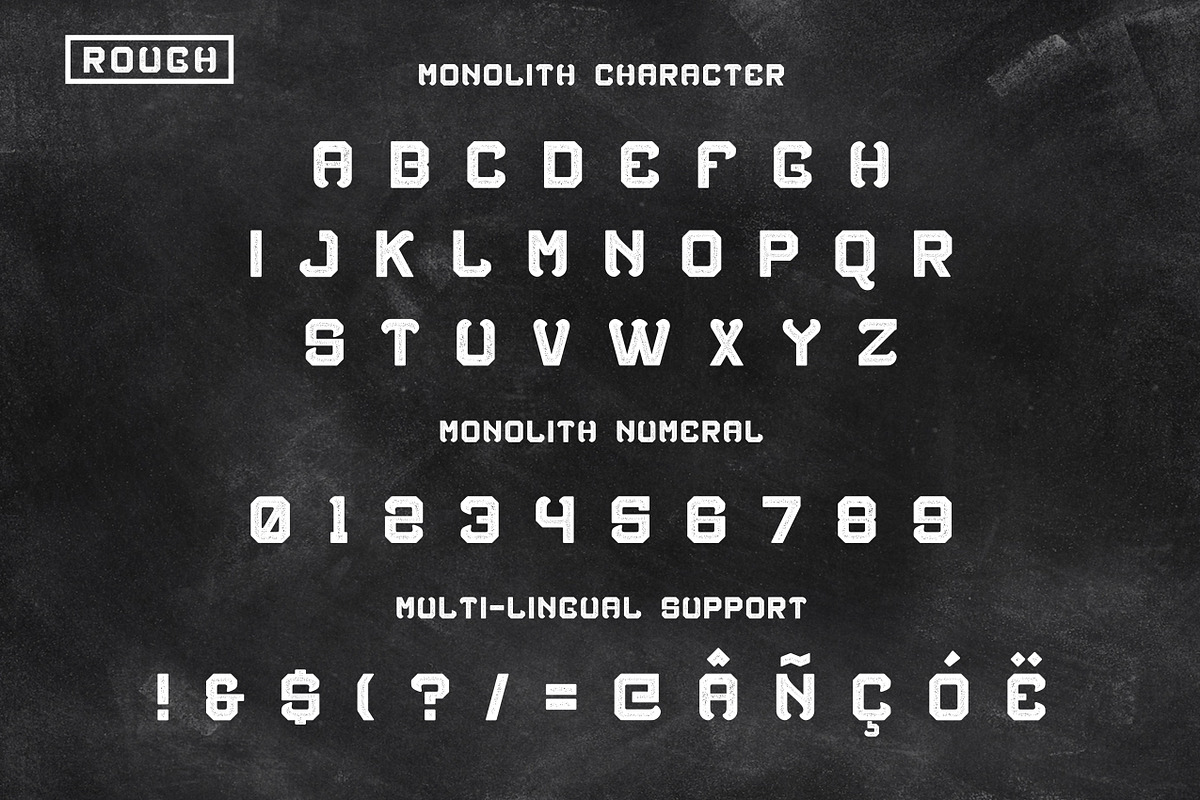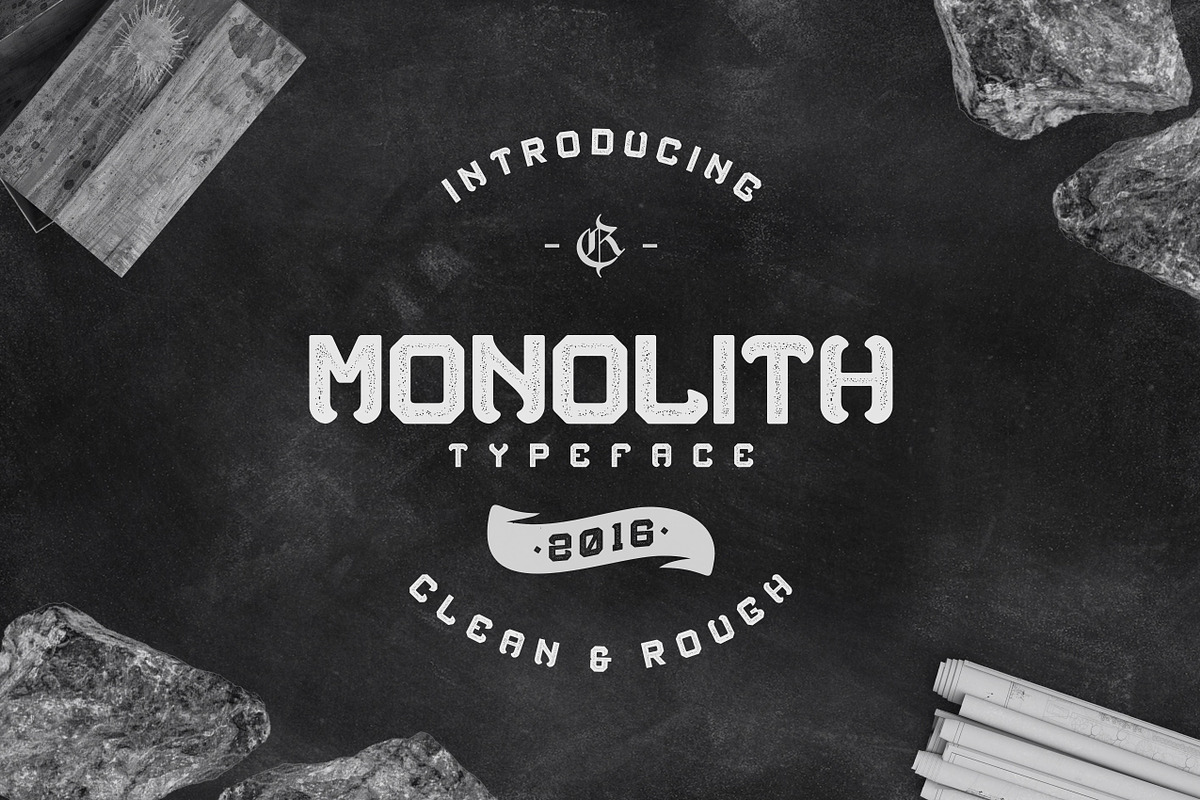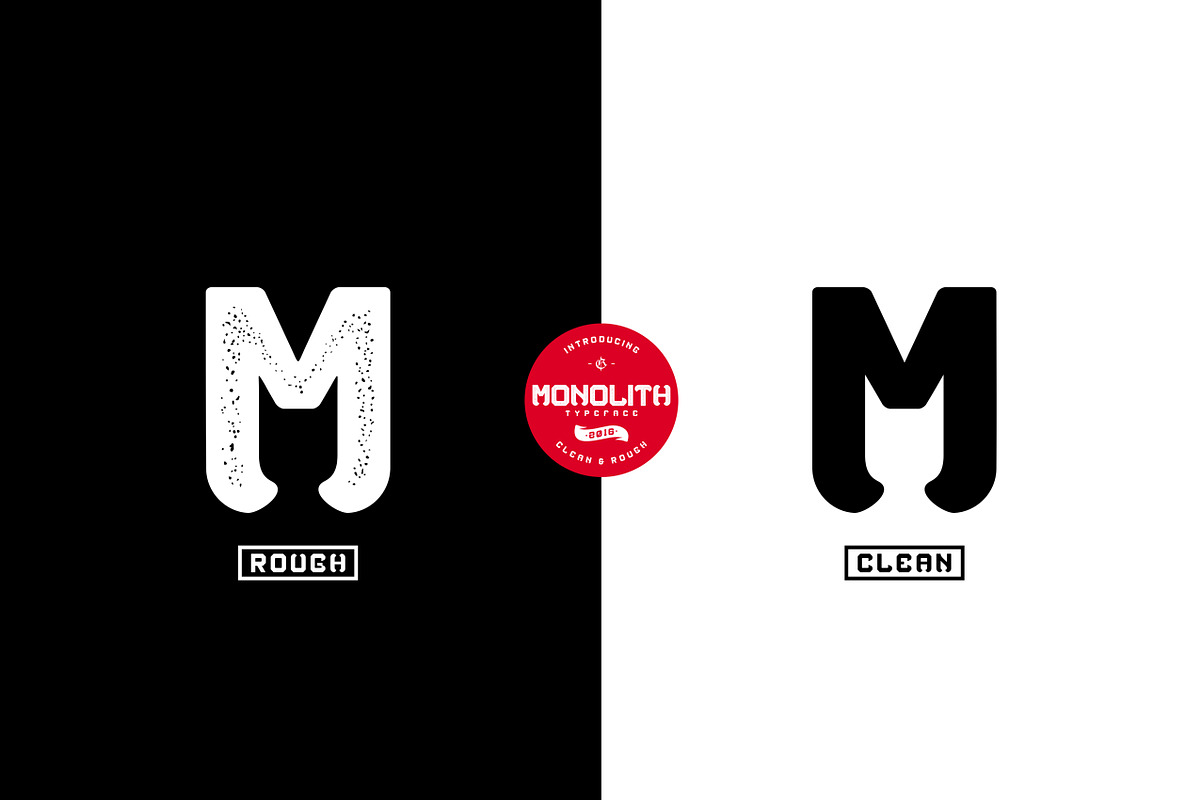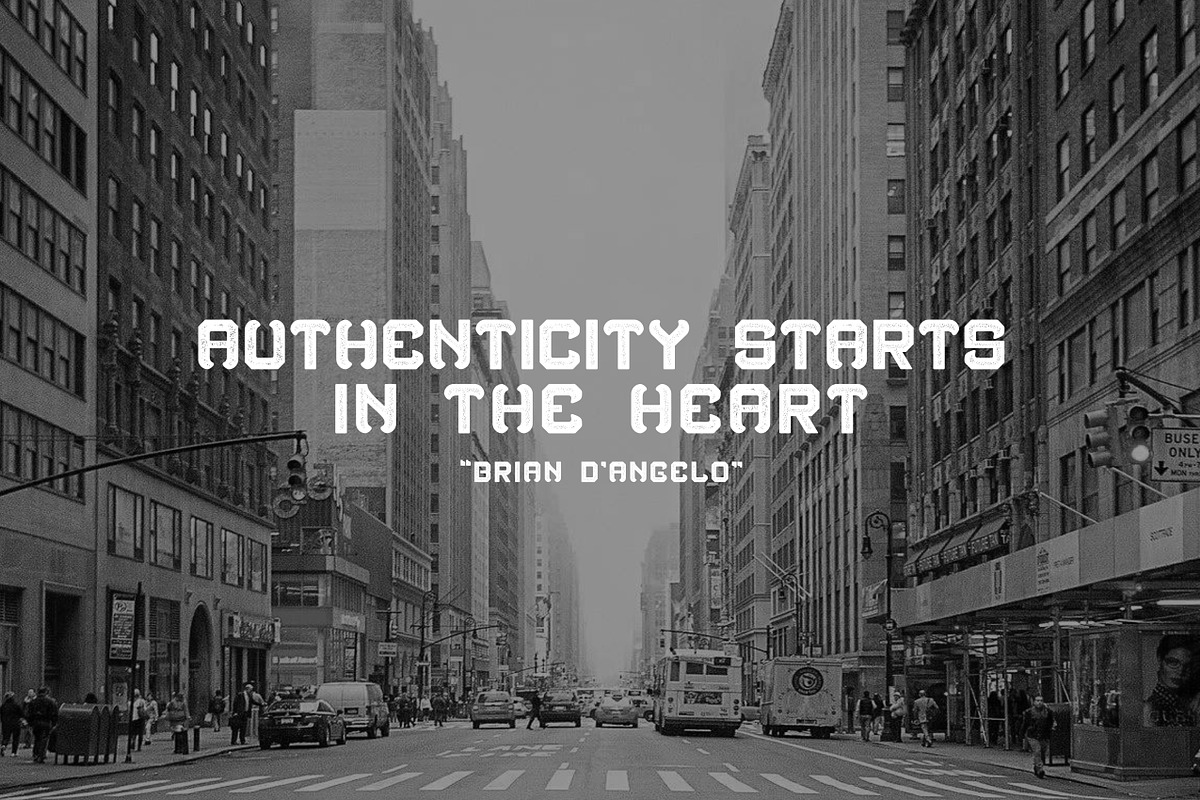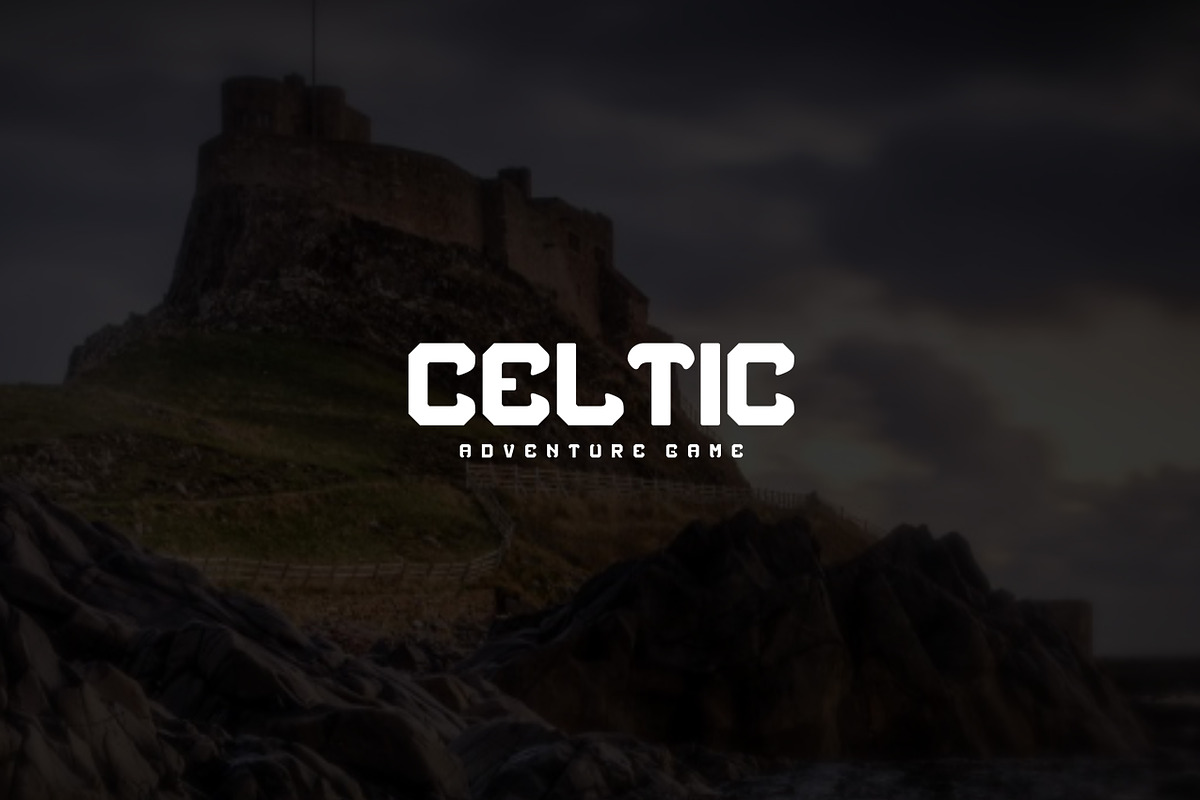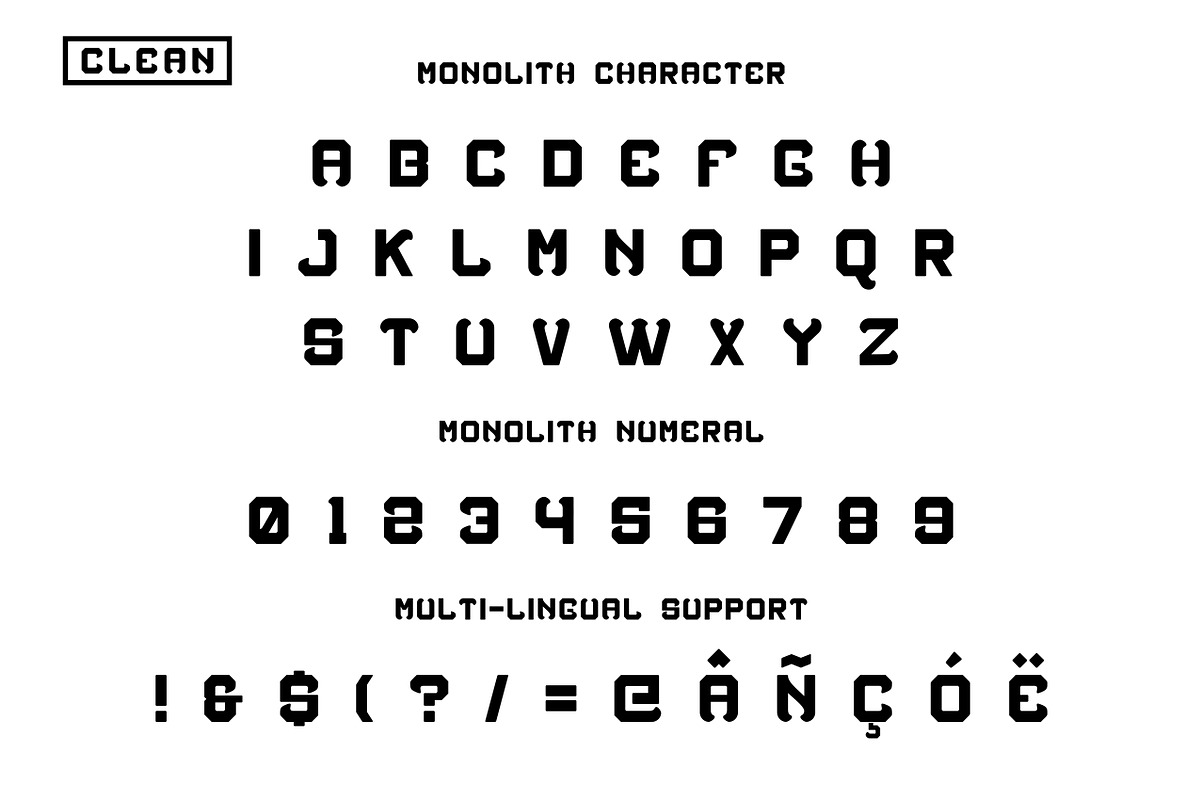
Monolith typeface (intro sale)
Monolith typeface (intro sale) by Rvq Type Foundry is a font selected for branding, posters, packaging, typography.
- Come with 2 styles, a clean and rough,The Monolith typeface includes a full set of capital and lowercase letters, as wellas multi-lingual su
- Monolith typeface is suitable font for many creative products & designs.
Why Monolith typeface (intro sale) is worth a look
Monolith typeface (intro sale) by Rvq Type Foundry fits naturally into Branding, posters, packaging, typography.